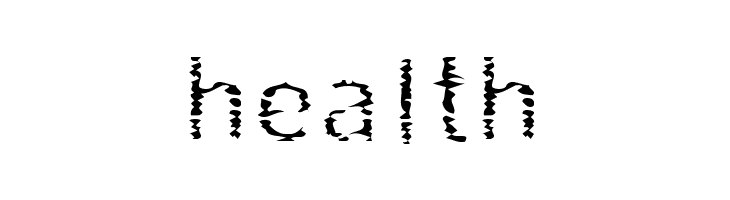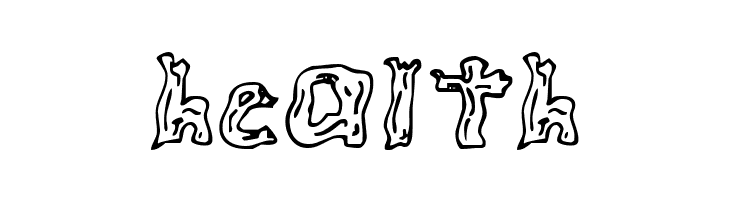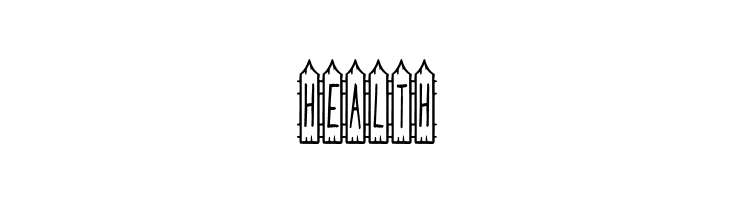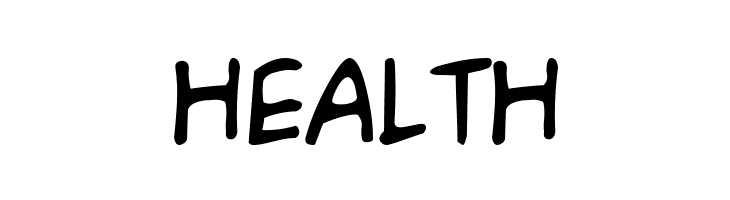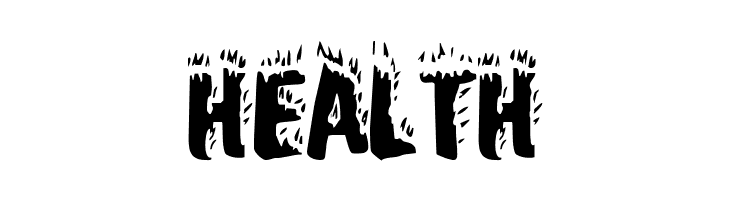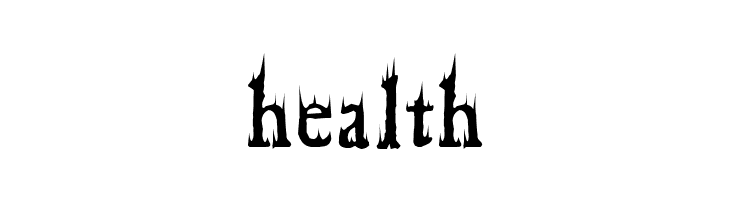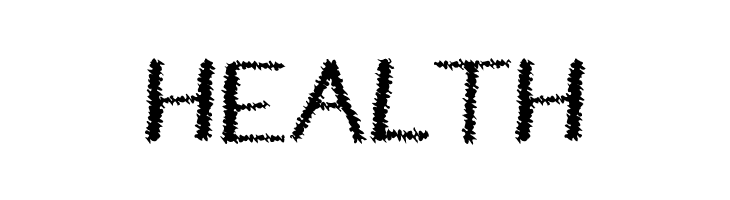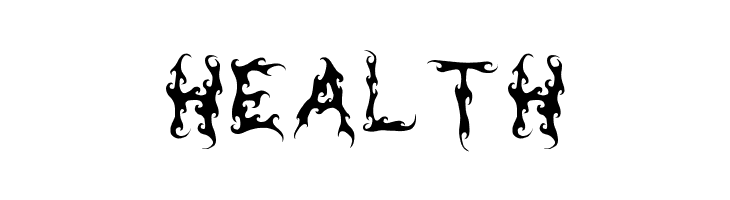
A distressed, eroded font with a rugged, vintage aesthetic.
A dynamic, flame-inspired decorative font with jagged, organic edges.
A playful, decorative font with characters enclosed in picket fence shapes.
A bold, playful handwritten font with smooth, rounded strokes.
A playful, crayon-like font with a hand-drawn, whimsical style.